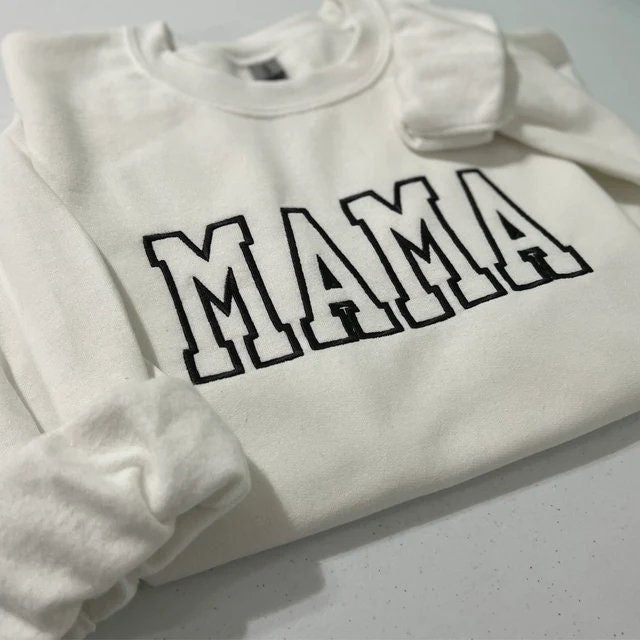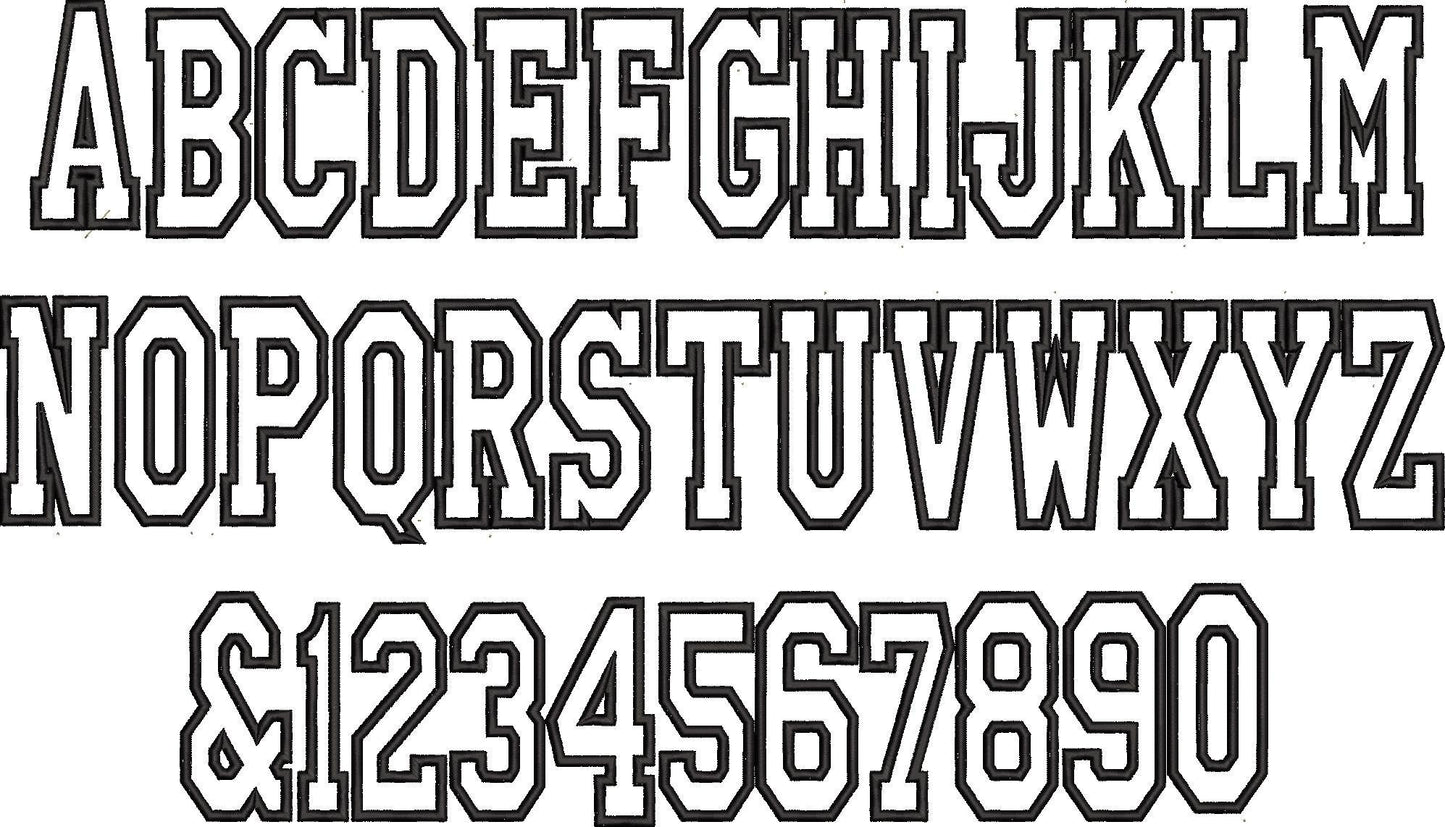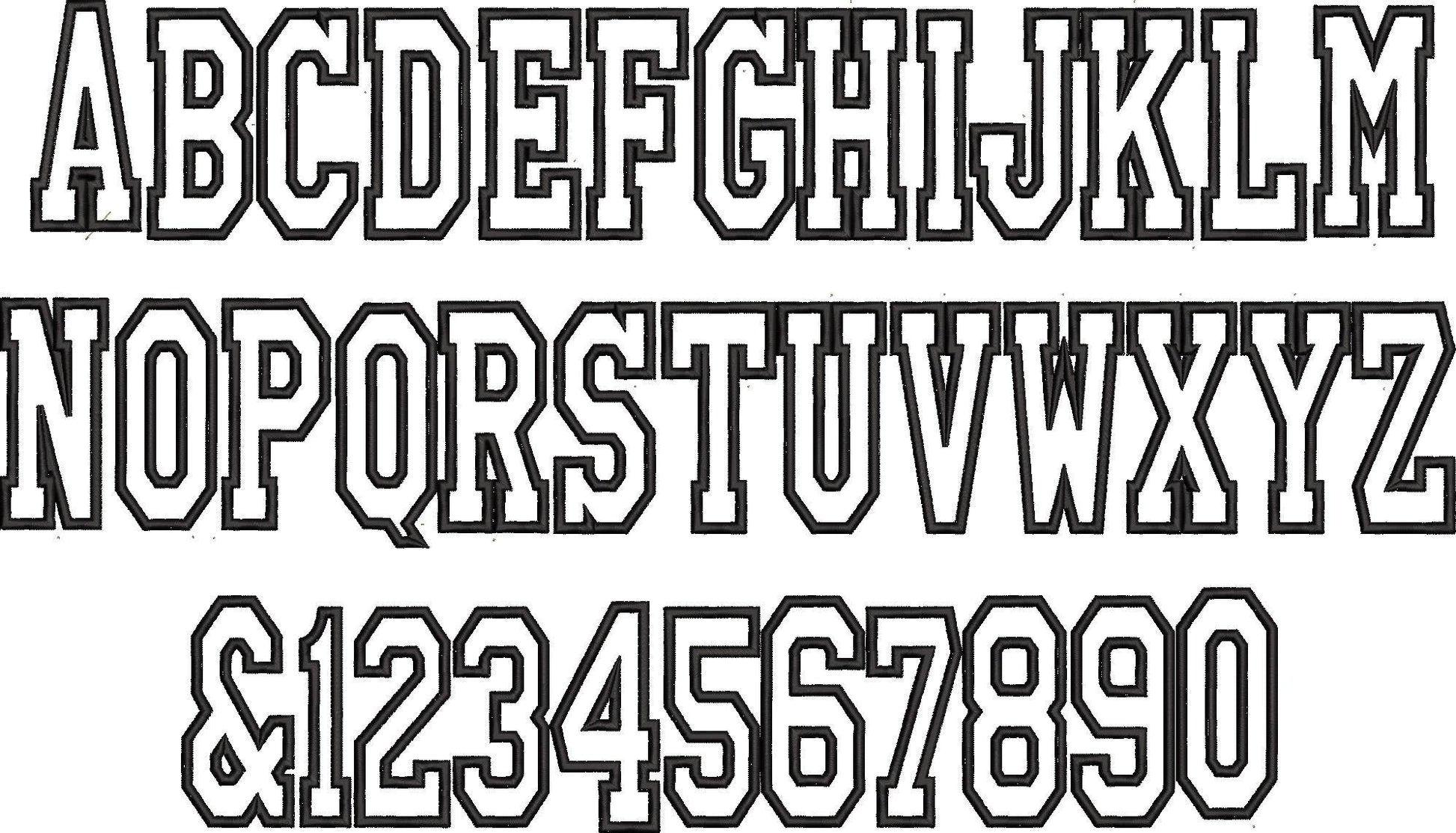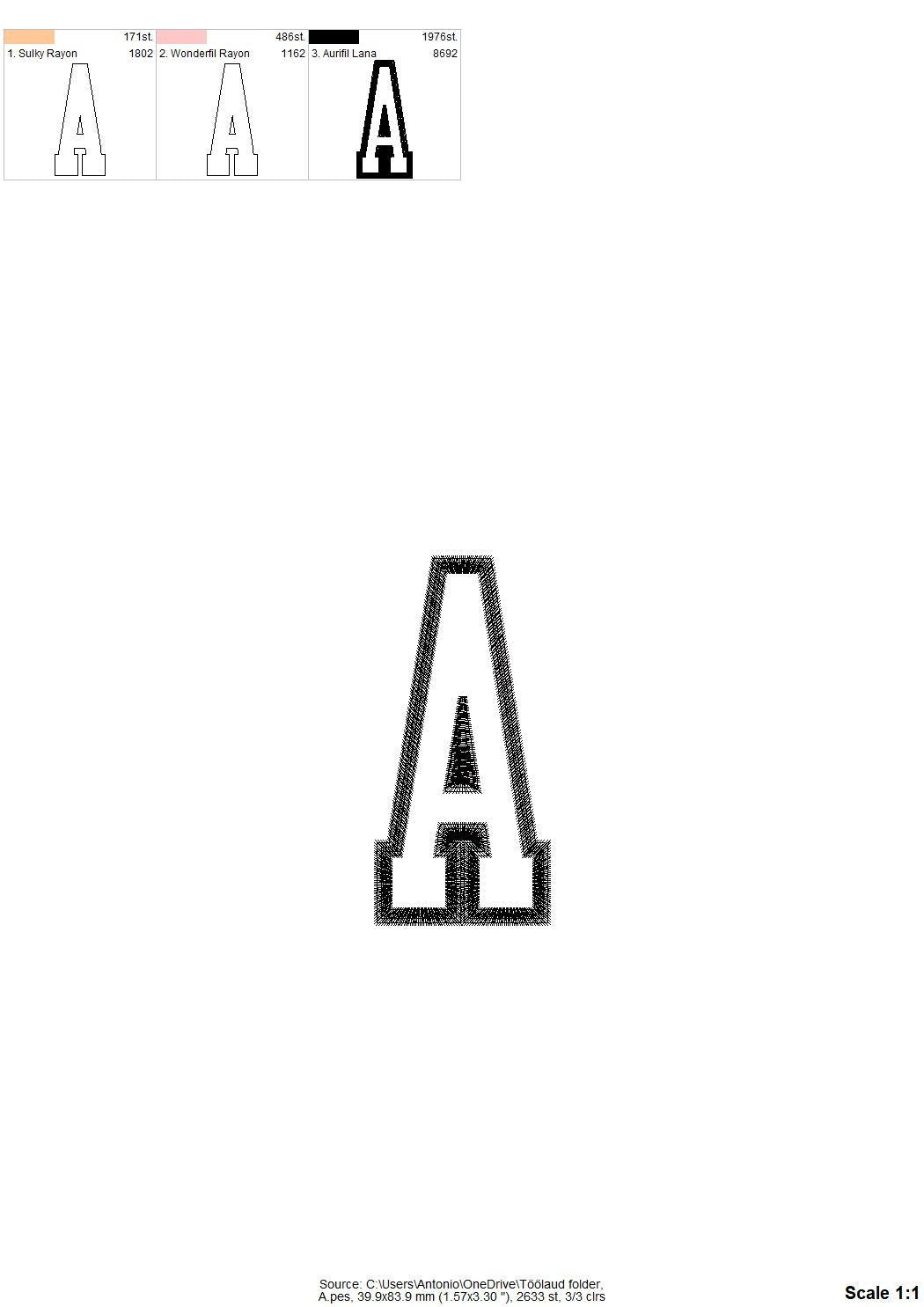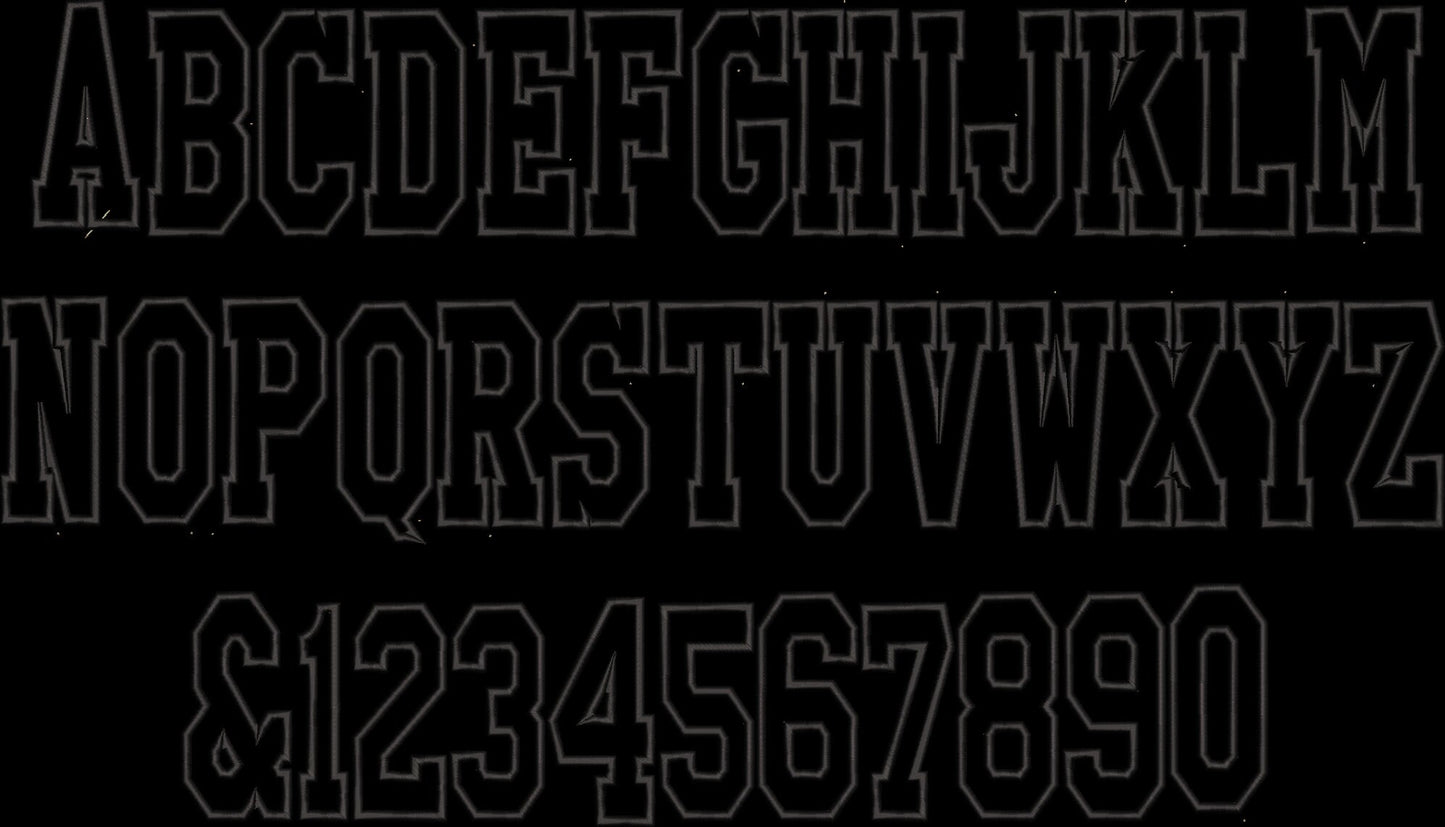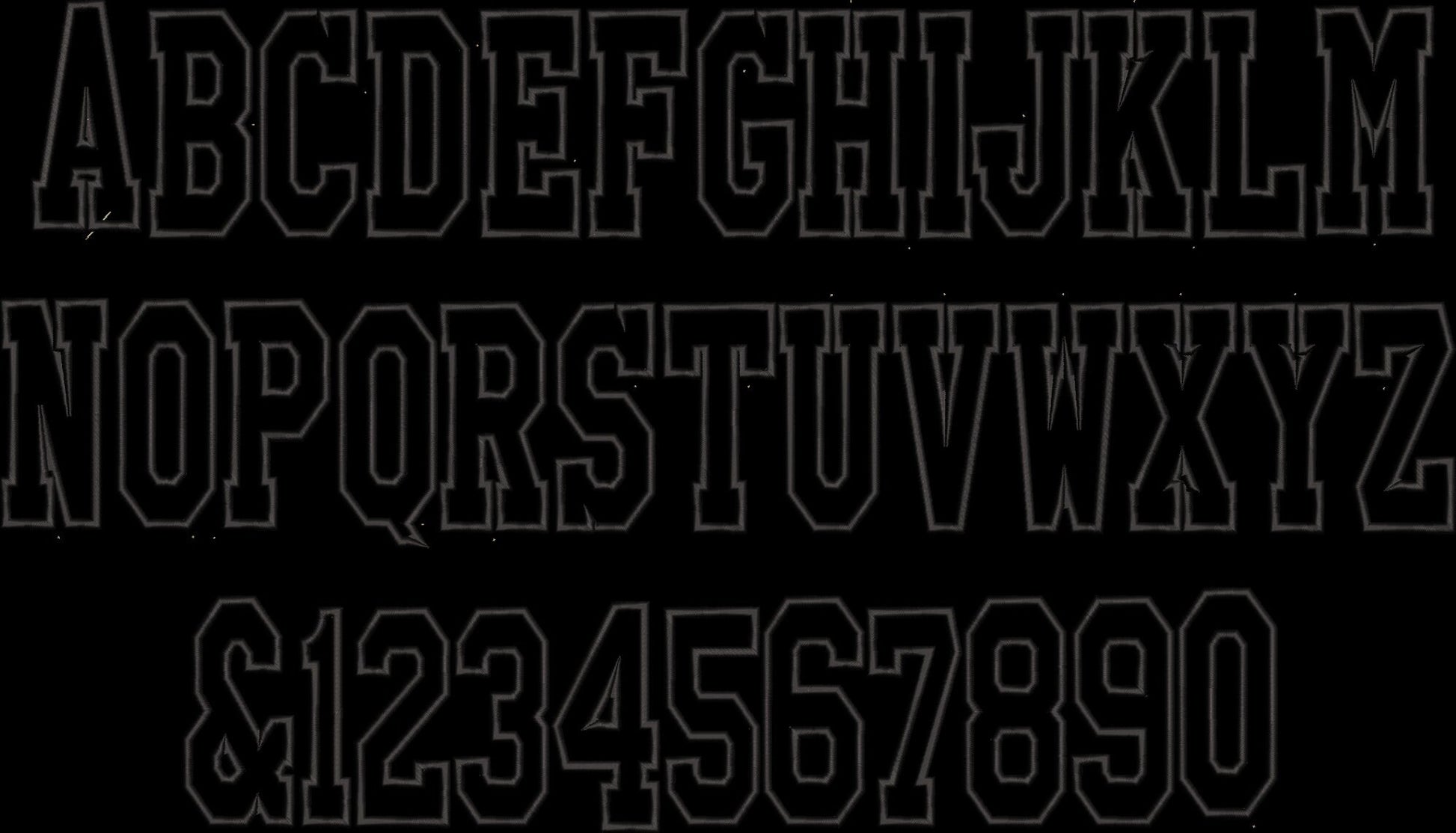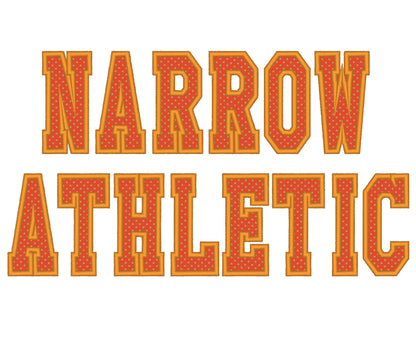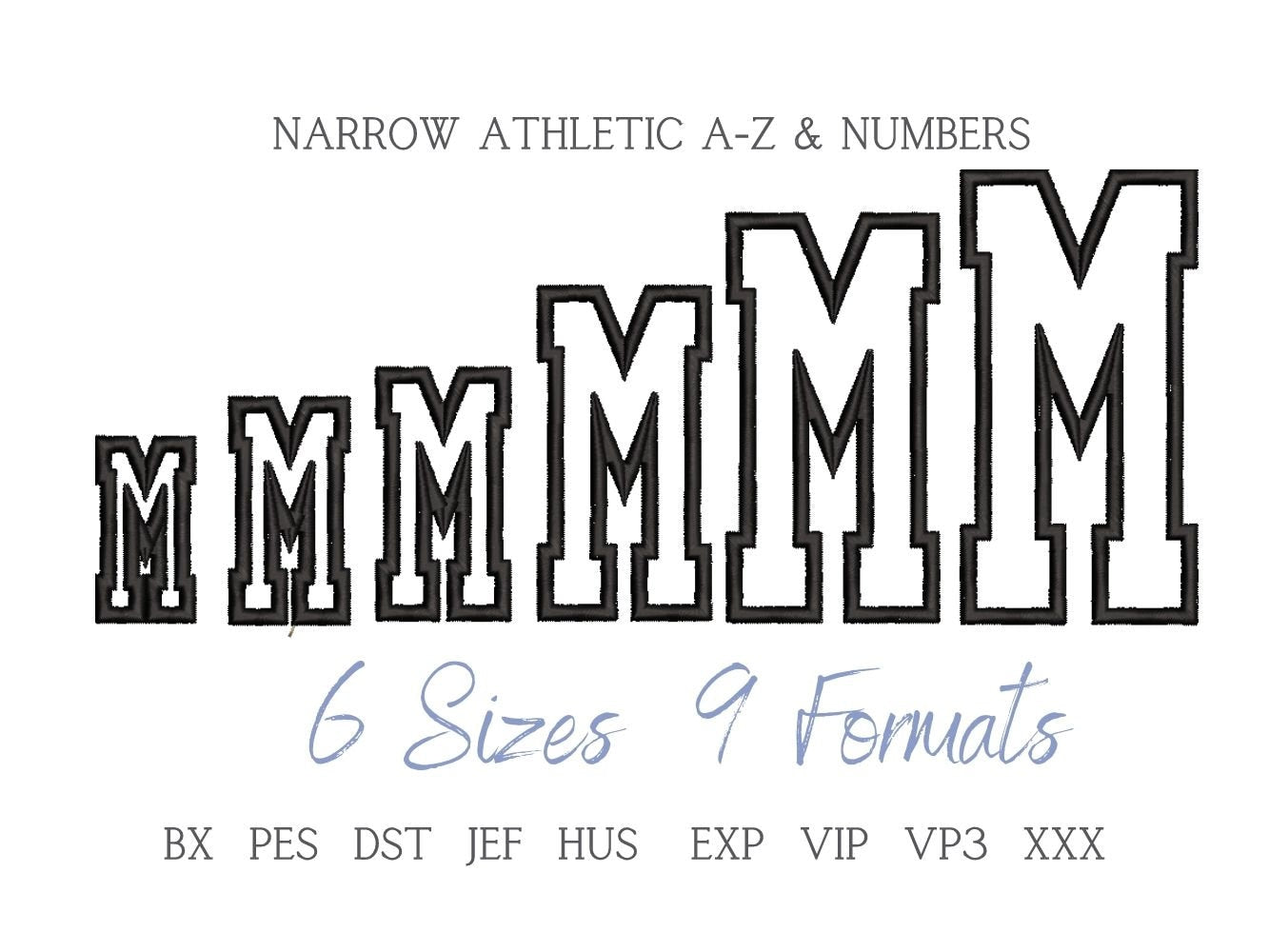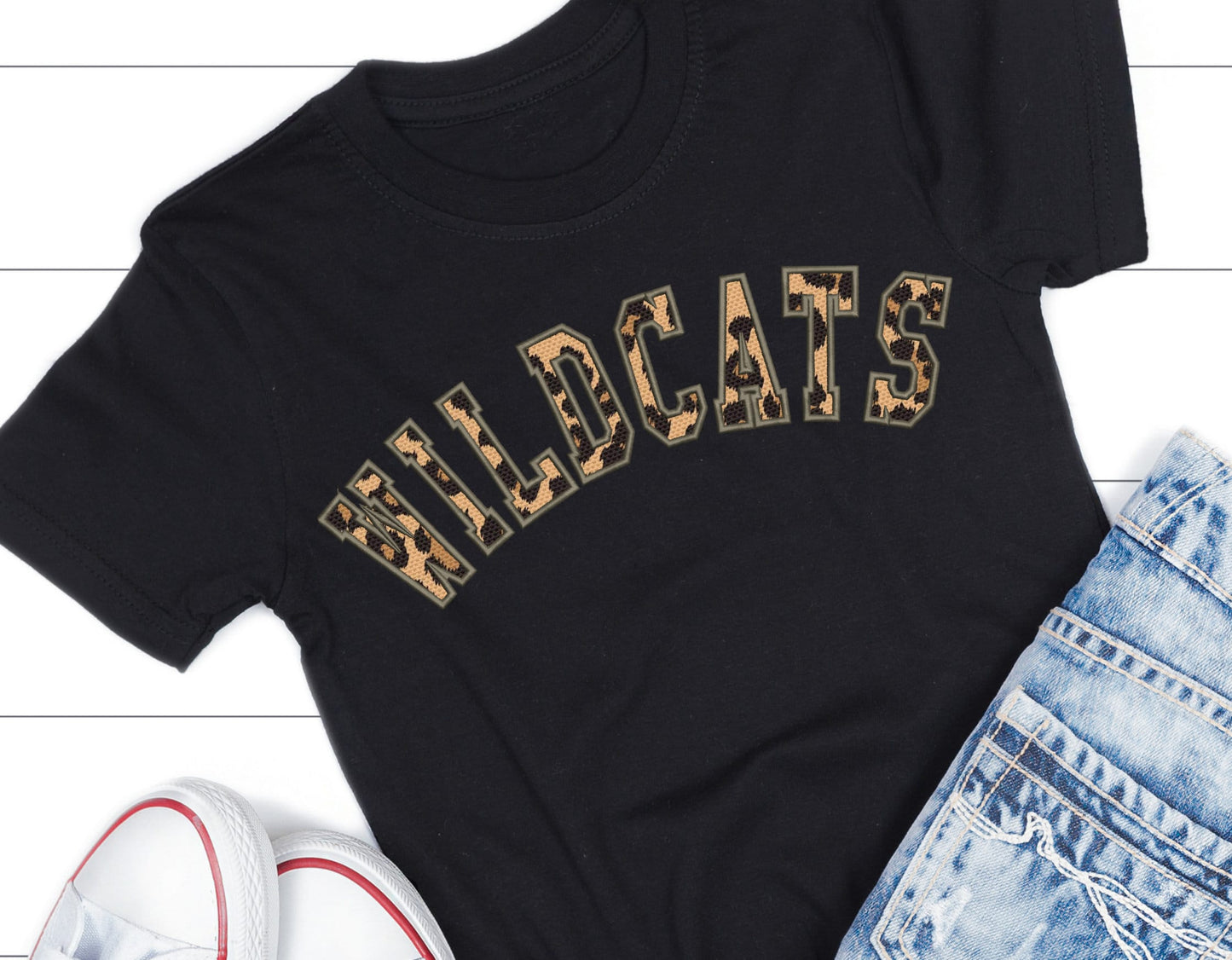
The narrow varsity-style applique BX font that I ordered was great, and stitched well. Thanks!
Stitched nicely but so disappointed with the stitches that were out of place. This is for a client.
Exactly what I was looking for!
This font is exactly what I needed. Thanks!
I needed a thinner university font for a custom order so I searched and found this one. I’m so happy I found it because I was able to give my customer exactly what she wanted! It stitched out beautifully!
This is a great font. Worked well.
This font stitches out nicely.
Stitches out beautifully! Exactly what I was looking for!
Clean and easy stitchout, love the tall, narrow letters for my 6x10 hoop.
The narrow font worked great for a youth size shirt
Stitches up beautifully and works well in my machine
Stitched out beautifully. Just what I needed.
Stitched out beautifully. Perfect narrow double sports appliqué, absolutely recommend.
It stitched beautifully on a vintage jacket
love this font it was perfect for my youth size sweatshirt.
Stitched out great! I love the narrow letters for longer word on my shirts!
Received just as described in listing and in photos.
Beautiful stitching. The narrowness is perfect.
Love this font! Stitched out perfectly!
Used to make shirts, stitched out great!
Yes!!!! Letters are narrow!!! Just what I needed. Sewed out GREAT!!!!!
Great for stitching out on sweatshirts
Stitched out well, would buy again.
Used to alter high school gear as we had a mascot change. Worked great
This font fit my purpose.
Love the font, it’s nice that it also works for appliqué
Stitches really nice and the outline is really thick
Just what I was looking for. Stitched great.
Stitched out really well. There was some under-stitches that I could see, but it works well for me for just starting out.
I wish the edges were thicker to enclose the fabric